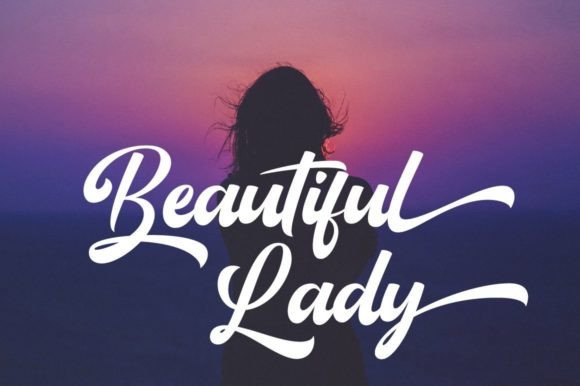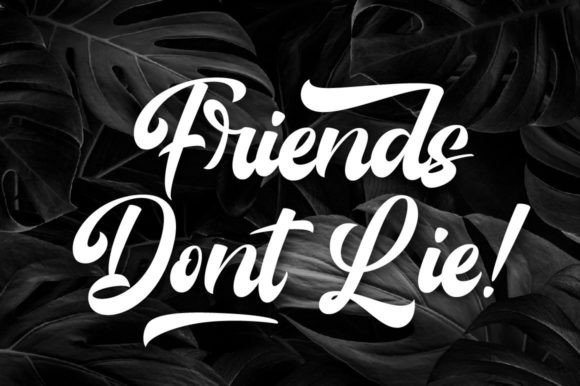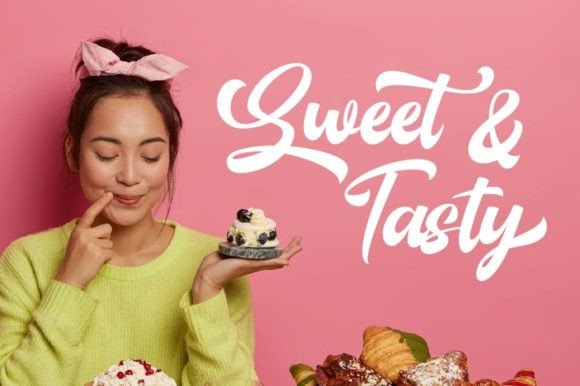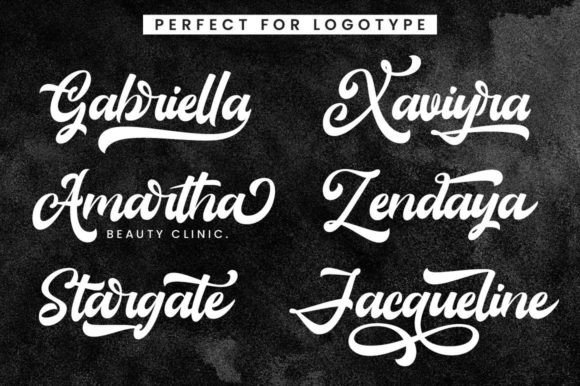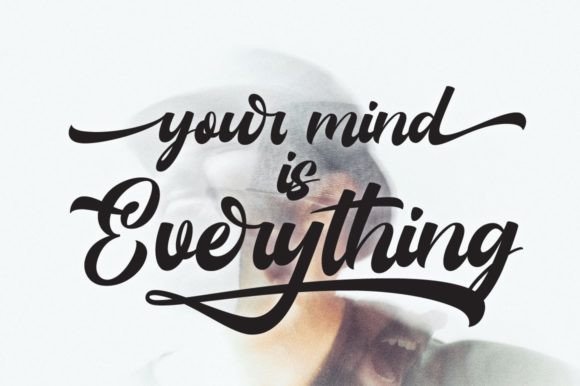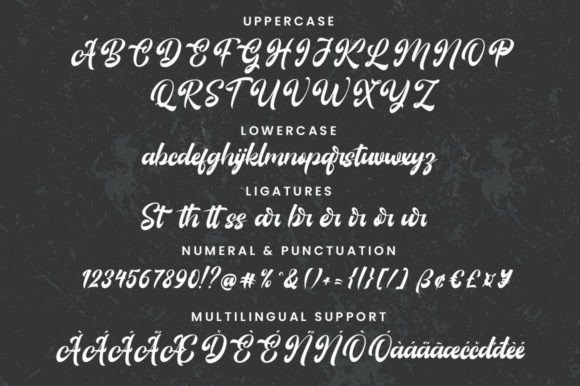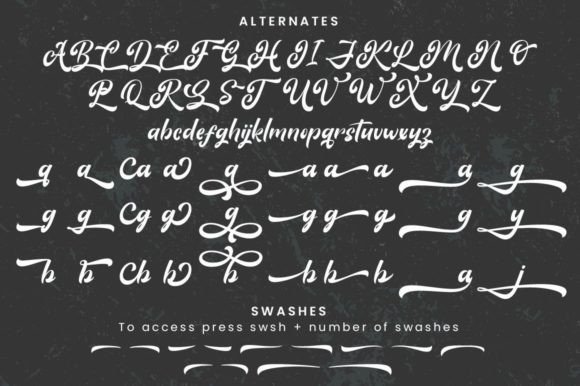
Blaytine Font
About Blaytine Font
“Blaytine” is a contemporary and bold brush script font characterized by its smooth handwritten flows. Its modern design lends a touch of sophistication and flair to any project, making it a versatile choice for a diverse range of designs. With its bold strokes and fluid movements, this font brings energy and dynamism to your creative endeavors.
The versatility of “Blaytine” knows no bounds. It effortlessly complements a wide variety of designs, enhancing them to the highest levels of visual appeal. Whether you’re working on branding materials, advertisements, packaging, social media graphics, website headers, or any other creative project, “Blaytine” stands ready to elevate your work with its contemporary and bold presence.
The font’s smooth handwritten flows add a personal touch to your designs, creating a sense of authenticity and connection with your audience. Its boldness ensures that your message is delivered with impact, capturing attention and leaving a lasting impression on viewers.
When incorporated into your favorite creative ideas, “Blaytine” has the remarkable ability to bring them to life. It transforms ordinary designs into extraordinary ones, infusing them with a sense of vitality and modernity. Watch as your projects come alive with the bold and stylish essence of “Blaytine,” making a statement and commanding attention wherever they go.
Embrace the power of “Blaytine” in your creative endeavors and witness how it transforms your ideas into visually striking masterpieces. Add this font to your toolkit, and experience the magic as it breathes life and excitement into your designs, making them unforgettable and impactful.